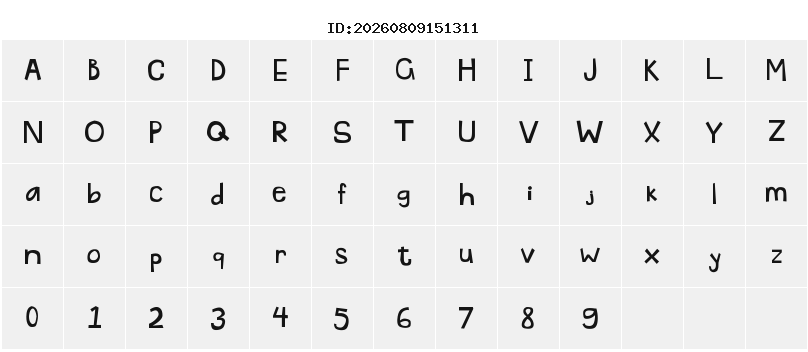
About Pascu1.ttf
Pascu1.ttf is a modern, elegant sans-serif font designed for ultimate readability and visual harmony. Perfect for branding, headlines, web design, and print materials.